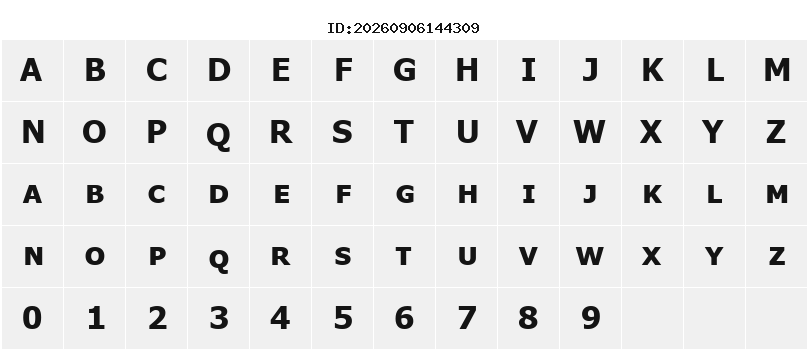
• Font Name: Tahoma Small Cap
• Font Style: Gras
• Font ID: Microsoft Tahoma Small Cap Bold
• Full Font Name: Tahoma Small Cap Gras
• PostScript Name: TahomaSmallCap-Bold
About Tahoma Small Cap.ttf
Tahoma Small Cap.ttf is a modern, elegant sans-serif font designed for ultimate readability and visual harmony. Perfect for branding, headlines, web design, and print materials.